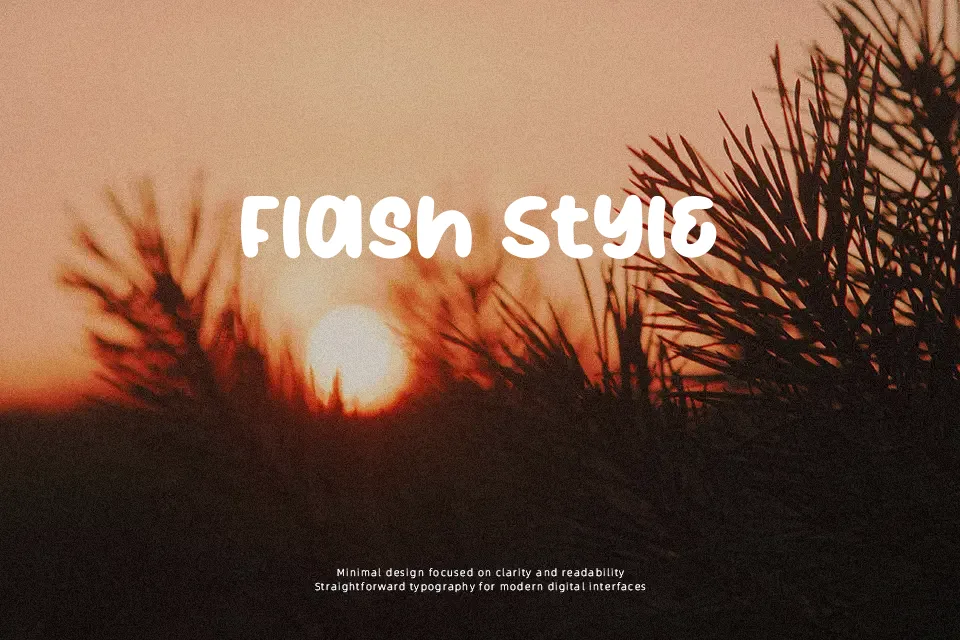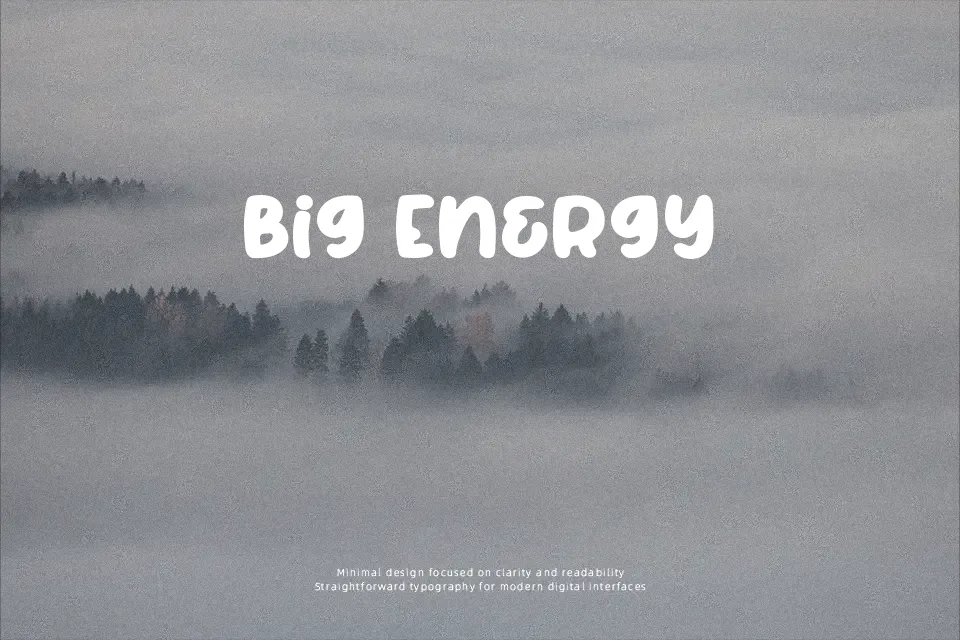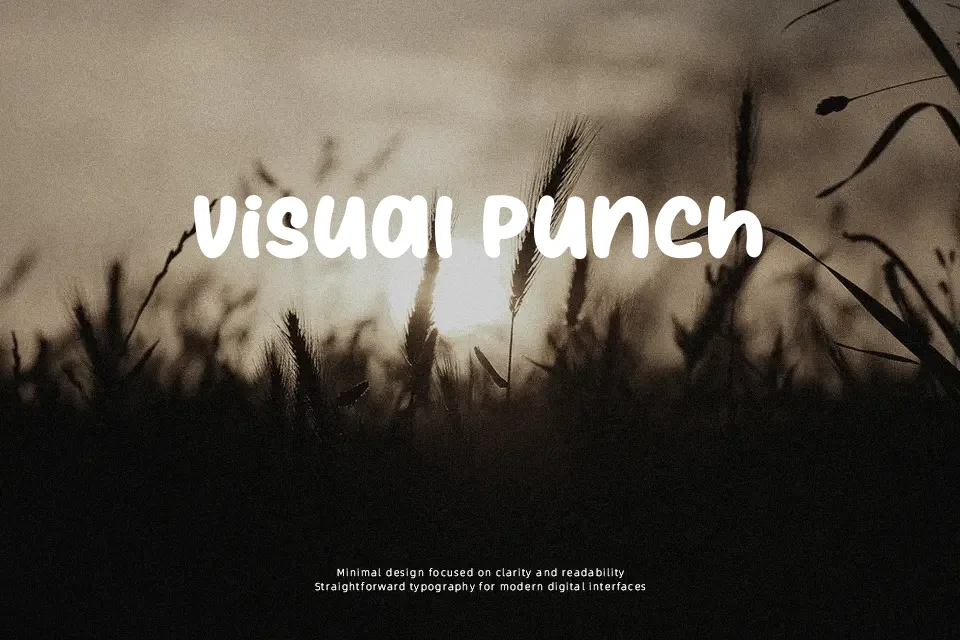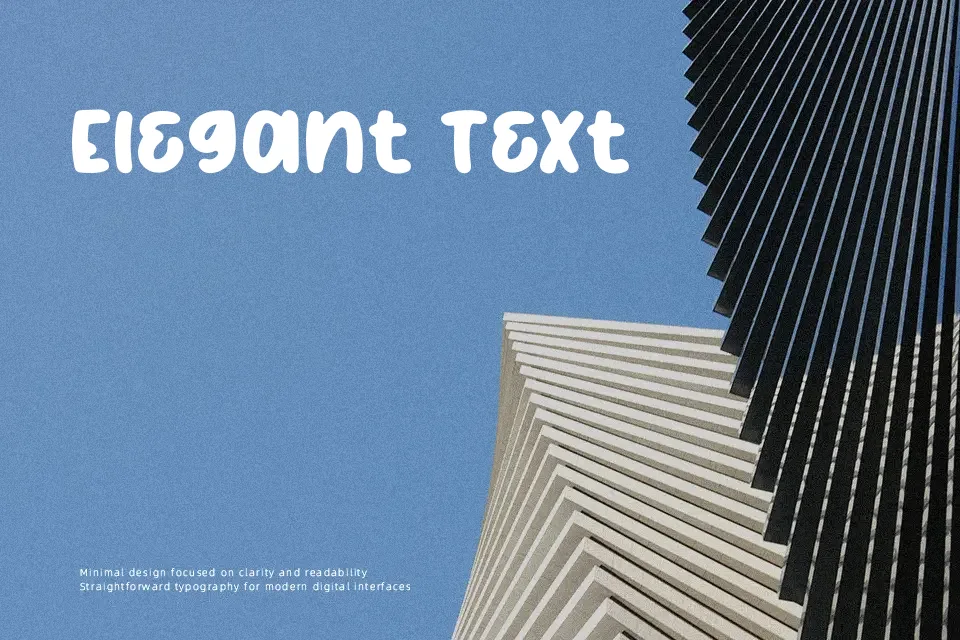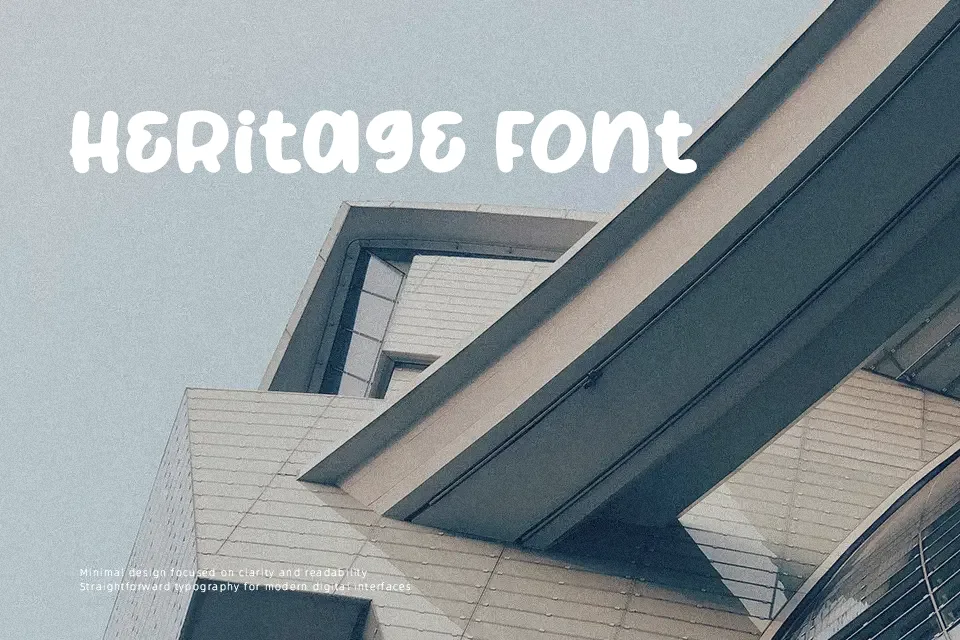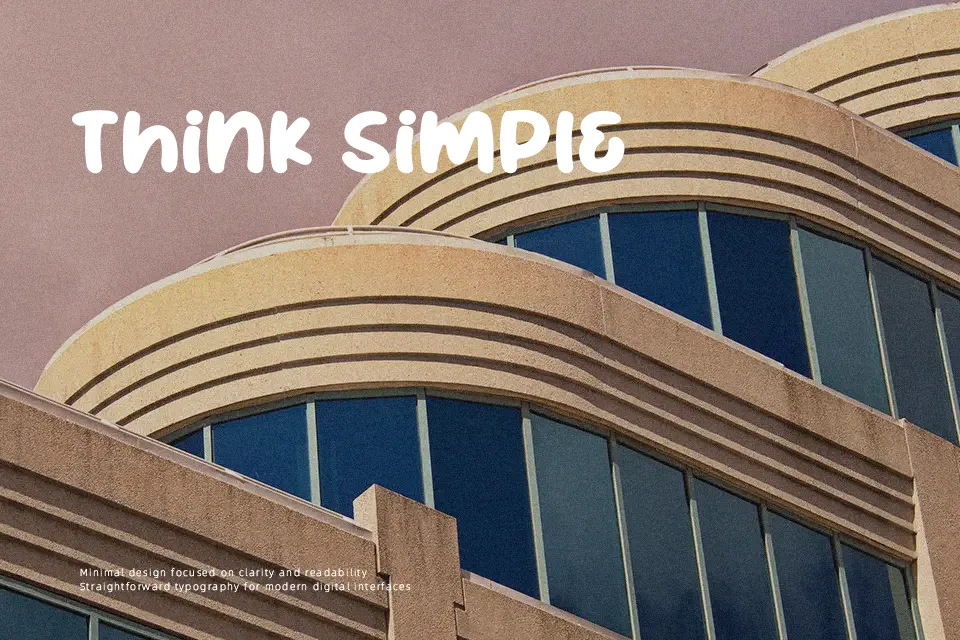
Thursday Routine Font
Thursday Routine Font features chunky character structures characterized by thick, uniform strokes and gently softened corners. Wide horizontal proportions give the letterforms an open demeanor, while moderate character spacing maintains clear definition between adjacent shapes. At prominent display scales, the typeface delivers strong visual impact with dependable legibility across short phrases, making the design well matched for youth packaging, comic panels, YouTube thumbnails, and arcade posters. The heavy stroke weight ensures commanding visibility in headlines while sacrificing clarity in dense text. Consequently, the design becomes difficult to read across multi-line paragraphs, rendering the font unsuitable for editorial body copy.
Best For: children’s book titles, cartoon animation titles, casual product packaging, playful event posters
Not Ideal For: long paragraph text, corporate legal documents, mobile app interface labels, dense technical manuals